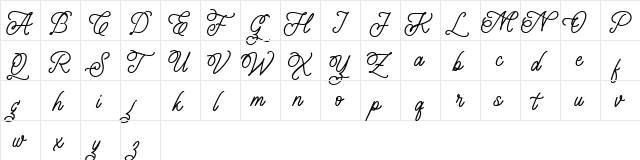
Leightonz FREE Regular
Design Context for Leightonz FREE Typeface
Leightonz FREE is a composed and adaptable typeface that performs quietly and consistently across a wide range of design contexts.